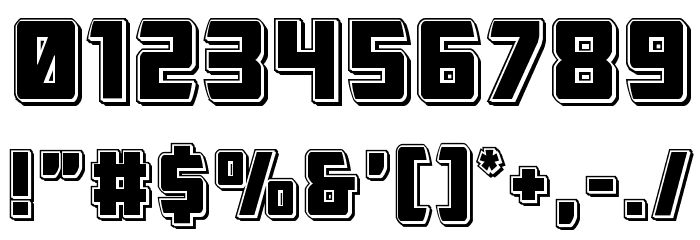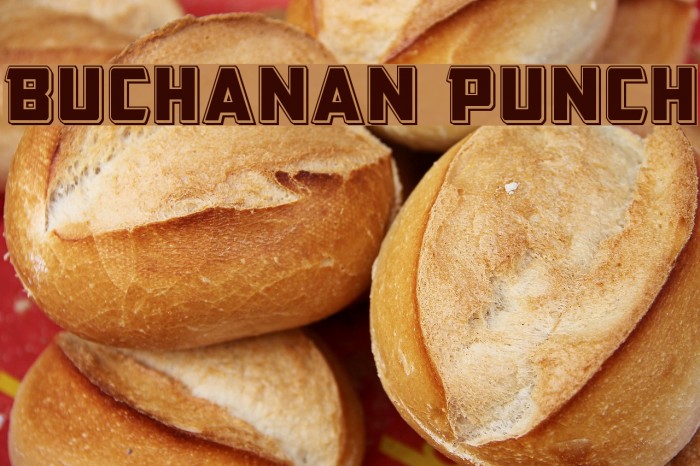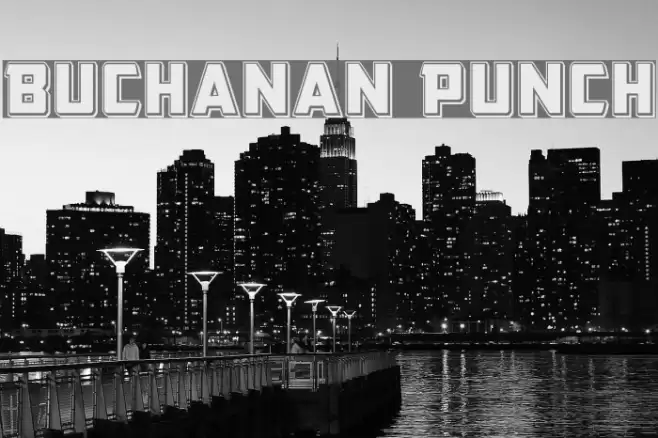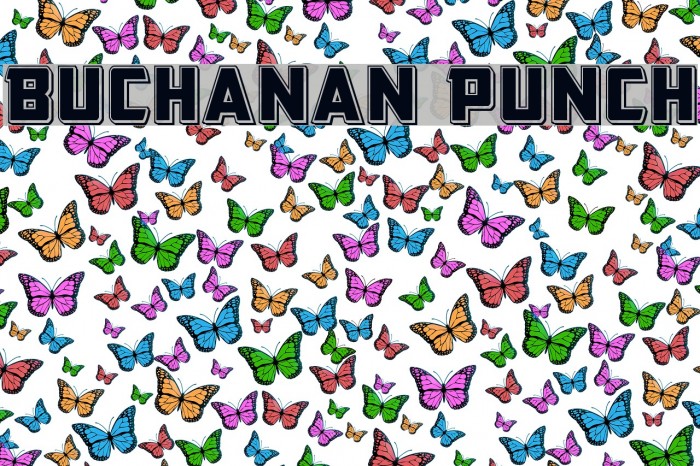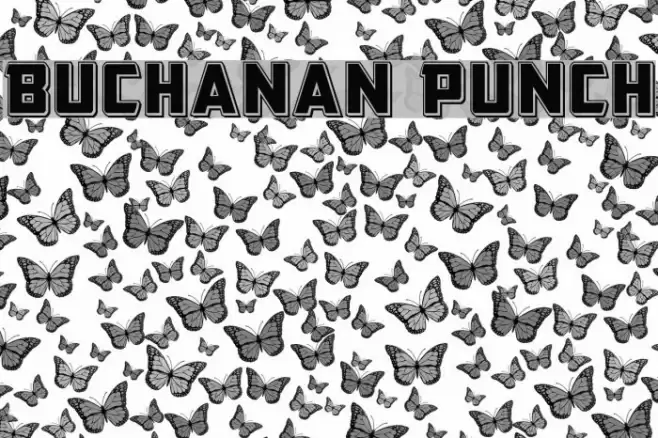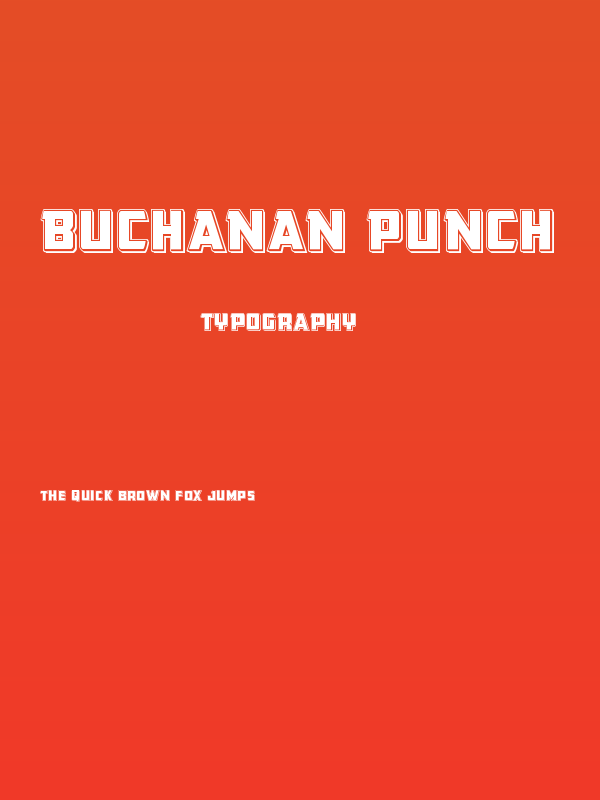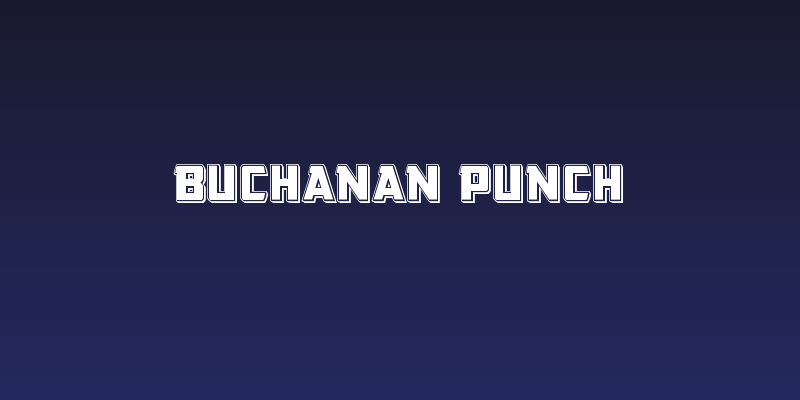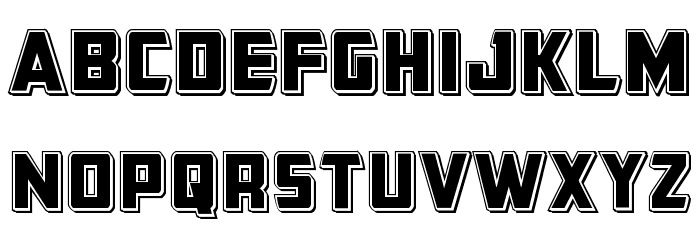
Buchanan Punch Font
Buchanan Punch Description
This font features a bold, impactful design with a strong presence. The characters are outlined, creating a striking visual effect that enhances readability and adds a layer of depth. The uppercase letters are uniform in height, while the numbers and special characters maintain a consistent style, ensuring a cohesive look across all text. The font's geometric shapes and clean lines make it ideal for attention-grabbing headlines and titles. Its boldness is complemented by a slight shadow effect, giving it a three-dimensional appearance.
| Proposed Projects | Ideal for posters, banners, logos, and any design requiring a bold statement. |